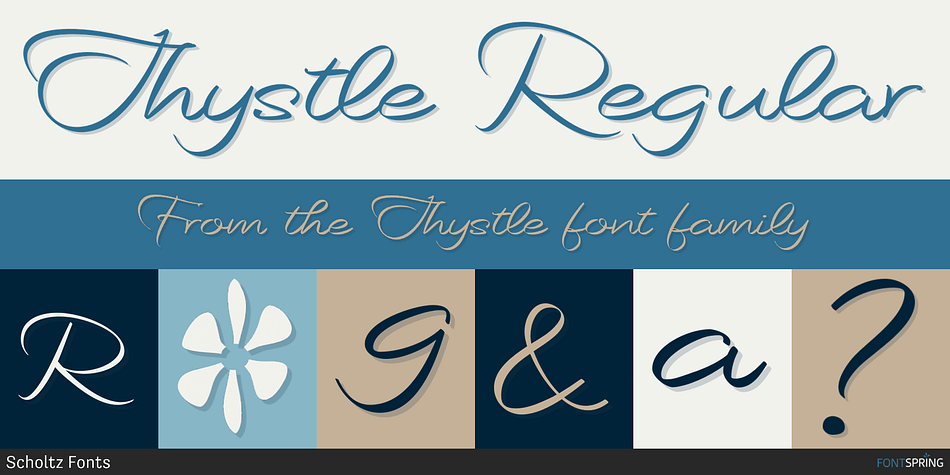
Thystle Regular
Thystle is a script and brush script font family. This typeface has six styles and was published by Scholtz Fonts.
Thystle is a “font for all seasons”.
Thystle is a “font for all seasons”. It has six styles ranging from fine to in-your-face, from delicate mono-weight pen strokes to fully calligraphic lines, from delicate, narrow characters to bold, powerful statements. Characteristically, all the styles abound with Anton Scholtz’s energetic “creative common” style - extravagant capitals, clear characters, and bursting-with-life swashes.
Three Thystle styles are calligraphic. You can use:
- Regular for invitations, poems, greeting cards and body text
- Black for swing tags, music media, menus and sub-headings
- Fat for posters, book covers and headings
Three Thystle styles are monolinear. You can use:
- Mono1, which is both delicate and condensed in width, for invitations, poems, greeting cards and body text
- Mono2, which is of medium weight and condensed in width, for swing tags, music media, menus and sub-headings
- Mono3, which is heavier and of standard width, for posters, book covers and headings.
Opentype features include alternative upper case characters, as well as a number of ligatures. (These can be used in applications that access OpenType features.)
Thystle contains over 283 characters - (upper and lower case characters, punctuation, numerals, symbols and accented characters for both Text and Display caps). It has all the accented characters used in the major European languages.